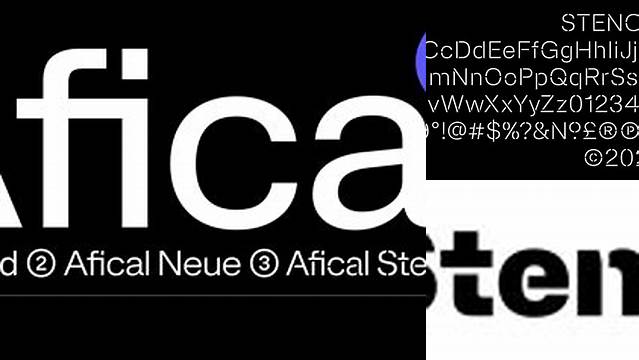
Discovering the Afical Stencil Black Font
Let's kick things off by really understanding what the Afical Stencil Black font is all about, shall we? This typeface isn't just a collection of letters; it’s a design element with a personality all its own. When you first lay eyes on Afical Stencil Black, you'll immediately notice its distinctive, robust, and somewhat industrial aesthetic. It’s characterized by those iconic 'bridges' or breaks in the letterforms, which are the hallmark of any stencil font. But Afical Stencil Black takes this concept and amplifies it with an extra bold weight, giving it an undeniable presence. Imagine the strength of a military marking combined with modern readability. That's what we're talking about here, guys. This particular font manages to be both edgy and incredibly clear, making it a favorite for designs that need to grab attention without sacrificing legibility. Its unique structure means it stands out from the crowd, offering a fresh alternative to more conventional bold typefaces. Many designers gravitate towards an Afical Stencil Black font free download because it offers a very specific kind of visual punch. Historically, stencil fonts emerged from practical needs—think shipping crates, military equipment, and industrial labeling. They were designed for quick, clear application using stencils, which necessitated those connecting 'bridges' to hold the letterform together. Afical Stencil Black pays homage to this heritage while giving it a sleek, contemporary upgrade. It doesn't feel dated; instead, it feels timeless yet modern. The heavy strokes and condensed feel contribute to its strong visual impact, making it ideal for headlines, logos, and any text that needs to feel authoritative and impactful. For anyone looking to make a strong visual statement, the appeal of an Afical Stencil Black font free download is pretty clear. It's a fantastic tool to have in your font library, ready to deploy when you need a touch of urban grit or a powerful, no-nonsense declaration. So, when you're thinking about adding some serious character to your next project, remember the striking qualities that make Afical Stencil Black so uniquely captivating. It’s a versatile beast, capable of transforming ordinary text into something truly extraordinary and memorable, which is why so many creative folks are always on the hunt for an Afical Stencil Black font free download.
Why Choose Afical Stencil Black for Your Projects?
So, you might be asking yourselves, “Why should I bother with an Afical Stencil Black font free download when there are so many fonts out there?” That's a great question, and I'm here to tell you exactly why this particular typeface deserves a prime spot in your creative toolkit. The primary reason, guys, is its unparalleled ability to make a bold statement. In a world saturated with design, cutting through the noise is crucial, and Afical Stencil Black excels at this. Its heavy weight and distinctive stencil breaks command attention without being overly decorative or distracting. This font doesn't whisper; it shouts with confidence and clarity, making it perfect for headlines, titles, and short, impactful messages that absolutely need to be seen and understood. Think about branding: a logo or a brand name rendered in Afical Stencil Black immediately conveys strength, modernity, and a touch of edgy sophistication. It suggests a brand that is robust, reliable, and unafraid to stand out. Its aesthetic appeal lies in this very balance of ruggedness and refined design. It's not just a blocky font; the subtle curves and precise cuts within each character give it a professional finish that many other stencil fonts lack. Beyond its aesthetic, the versatility of Afical Stencil Black font is another huge selling point. While it shines in bold, large applications, it can also provide a strong backbone to more intricate designs. You can pair it with lighter, more elegant serif or sans-serif fonts to create a dynamic contrast, adding depth and interest to your layouts. Whether your project leans towards a gritty, urban vibe, a sleek, modern aesthetic, or even a vintage-inspired look, Afical Stencil Black can adapt and contribute significantly. It's fantastic for anything from rock concert posters to industrial-themed website headers, and even for personalized apparel designs. Moreover, the psychological impact of using such a strong font is noteworthy. It instills a sense of urgency, importance, and often, authenticity. For projects where you want to evoke reliability, strength, or a cutting-edge feel, an Afical Stencil Black font free download becomes an indispensable asset. It helps in creating designs that don't just look good but feel right for their intended purpose. So, if you’re aiming for impact, versatility, and a typeface that communicates strength and style, then Afical Stencil Black should absolutely be on your radar. It’s a strategic choice for designers who understand the power of typography in conveying a message effectively, making that Afical Stencil Black font free download even more appealing.
Creative Projects Perfect for Afical Stencil Black
Now that you've got your Afical Stencil Black font free download installed and you know some key typography tips, let's get into the fun stuff: what amazing creative projects can you bring to life with this powerhouse font? Guys, the possibilities are practically endless because Afical Stencil Black is just so versatile for making a statement! First off, think about DIY crafts and personalized gifts. Imagine custom t-shirts, hoodies, or tote bags with a bold slogan or a name printed in Afical Stencil Black. It instantly elevates a simple item into something unique, edgy, and stylish. It's fantastic for creating custom stencils (ironically!) for spray painting or etching onto materials like wood or metal, adding a professional, handcrafted touch to home decor or personalized signage. For event invitations or party decor, especially for themed parties like industrial-chic, military-themed, or even a robust birthday celebration, Afical Stencil Black can set the perfect tone. Use it for the main text on invites, banners, or even food labels to convey a strong, cohesive aesthetic. Its striking appearance ensures your event details won't go unnoticed. If you're into graphic novel lettering or comic book titles, Afical Stencil Black can add a gritty, powerful edge to your work. It's ideal for hero titles, sound effects, or intense dialogue bubbles that need to convey strength or urgency. The unique stencil breaks lend themselves well to action-packed scenes, making your text feel dynamic and part of the artwork. For music-related projects, think album art, band logos, or concert flyers. The Afical Stencil Black font is a natural fit for genres like rock, metal, electronic, or hip-hop, where a strong, urban, and sometimes raw aesthetic is desired. It helps in creating visuals that resonate with the music's energy. Even for social media content creation, Afical Stencil Black can be your go-to for impactful quote graphics, engaging video titles, or eye-catching promotional banners. Its ability to command attention ensures your content stands out in crowded feeds. And let's not forget signage design. Whether it's for a small business, a cafe, or even personal warning signs (like